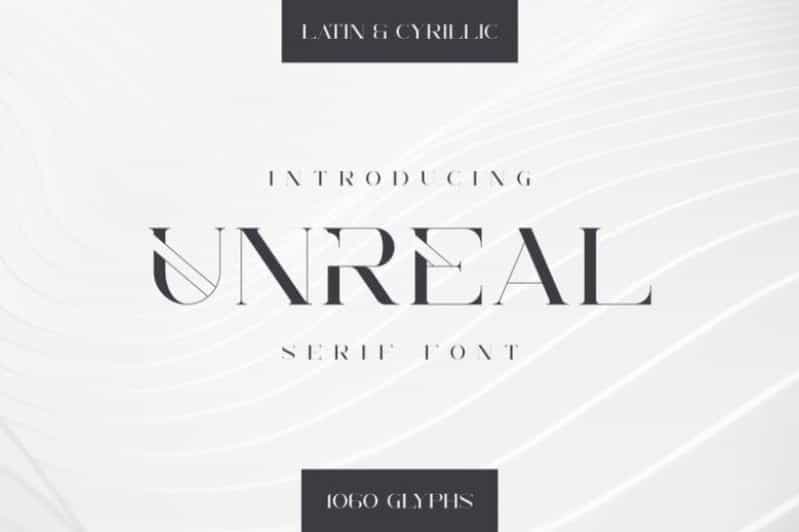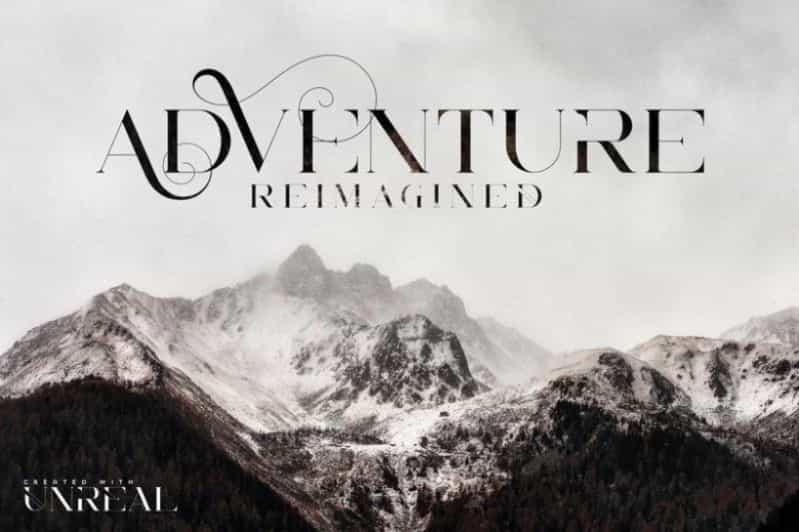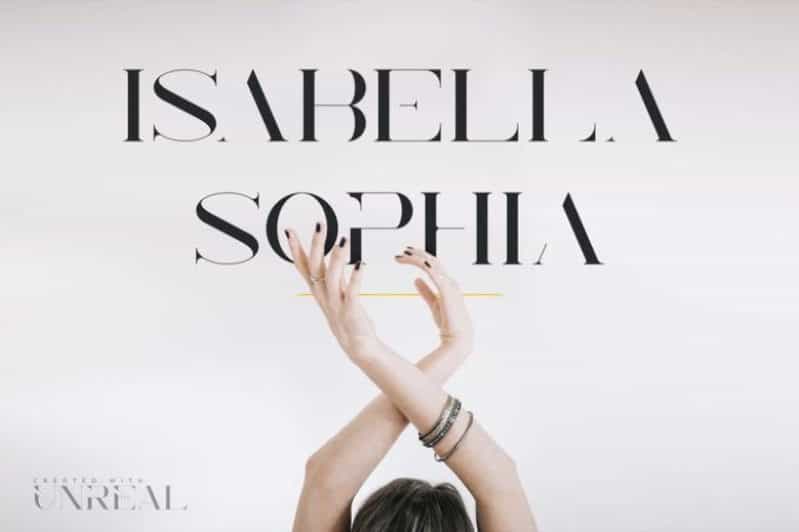
Discover Unreal Serif Font, part of the Serif Display collection—a versatile and unique font perfect for adding a personal touch to your projects. Download it for free and enjoy crafting designs with style, from invitations to social media posts. This font is available exclusively for personal use, giving you the freedom to create without limits. Unlock your creativity with Unreal Serif Font today!
Unreal is fully contemporary, with a simple and clean font that has both latin and Cyrillic support. It consists of 1060 glyphs in total, many alternate ones as well as multilingual support. The font is very flexible, and it can be used both in large and small sizes.